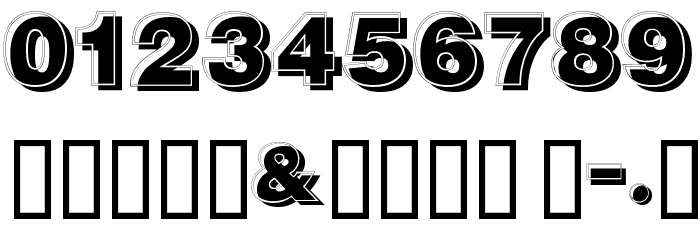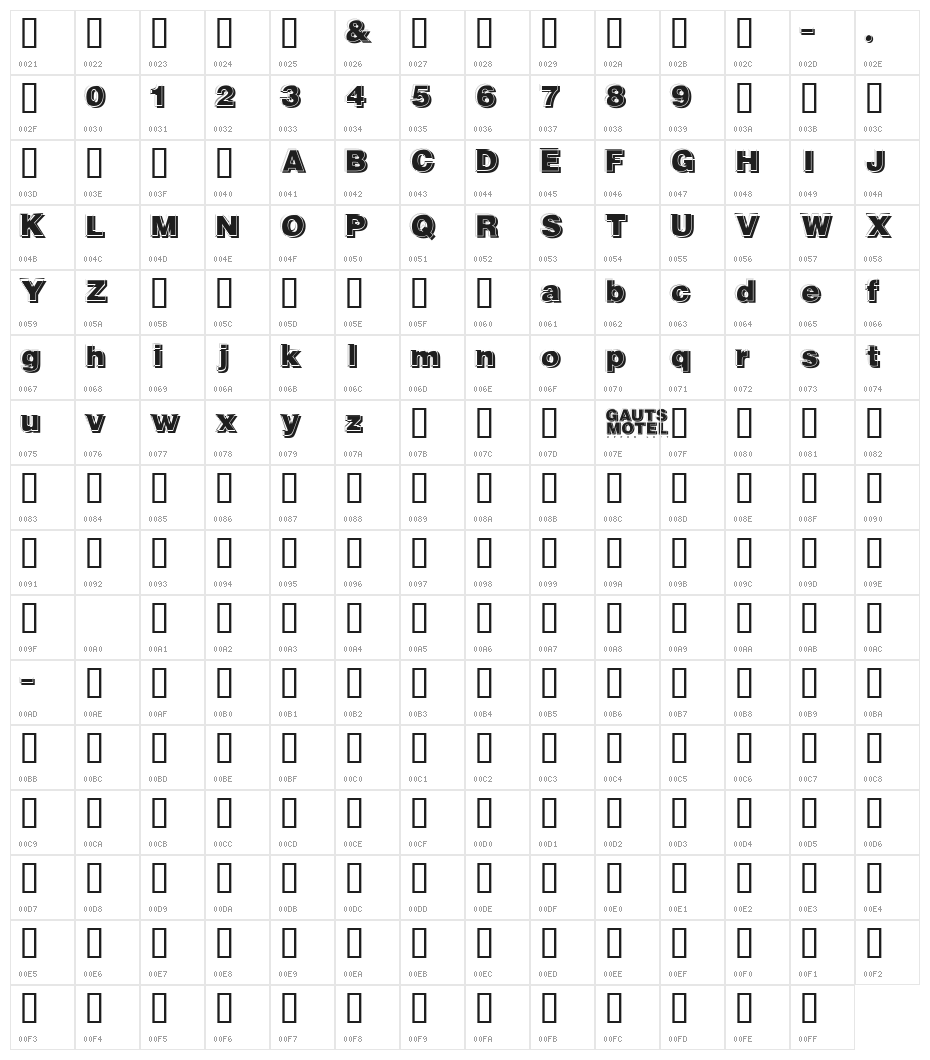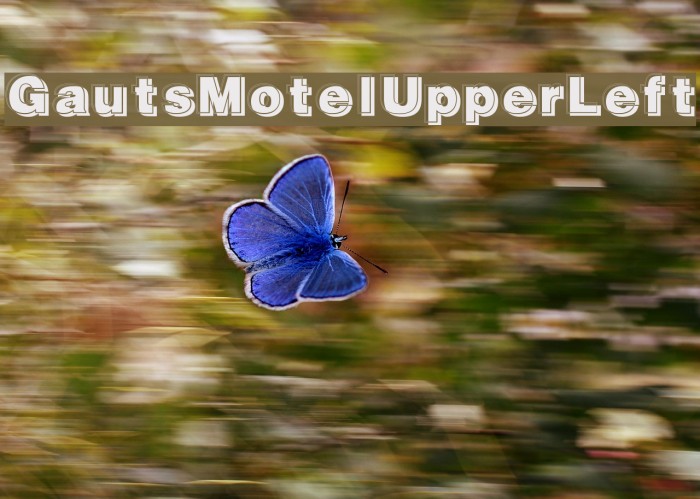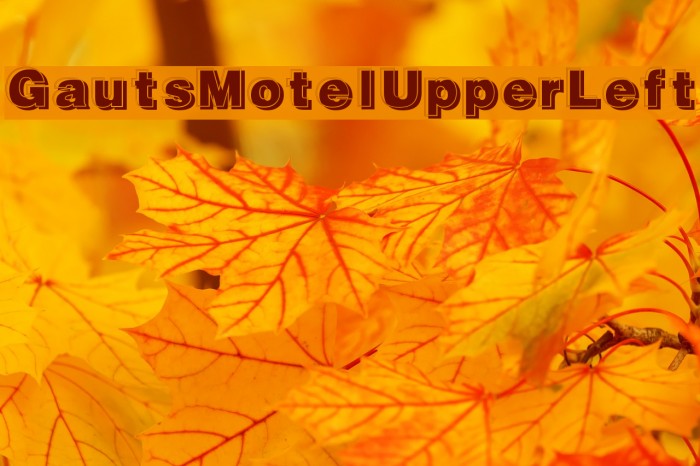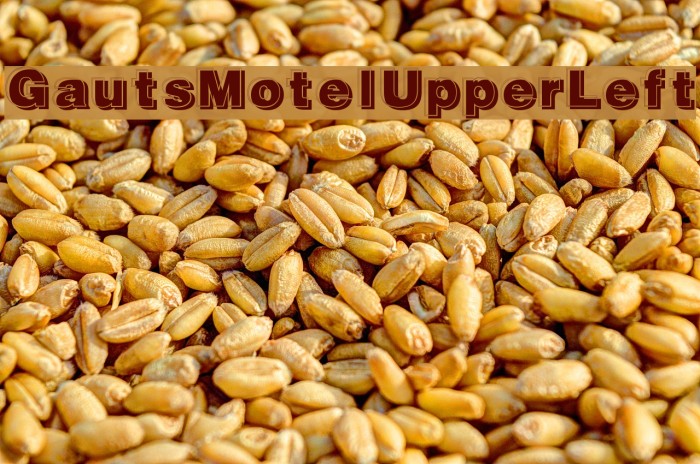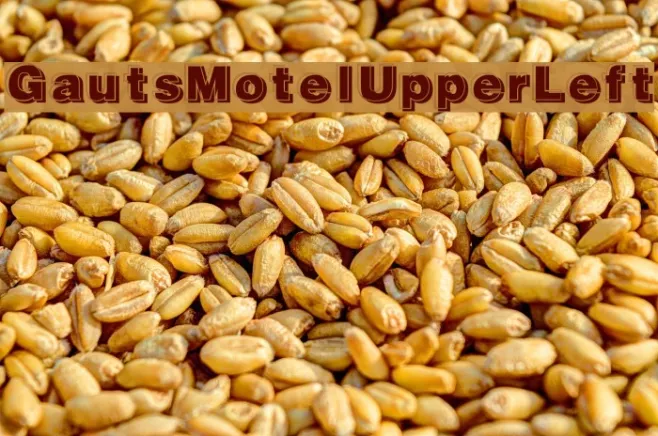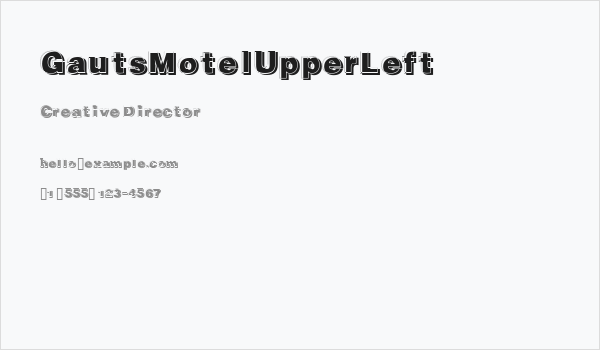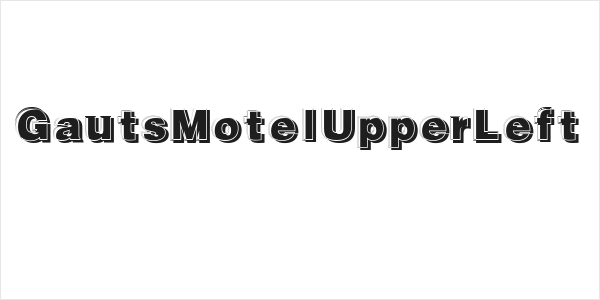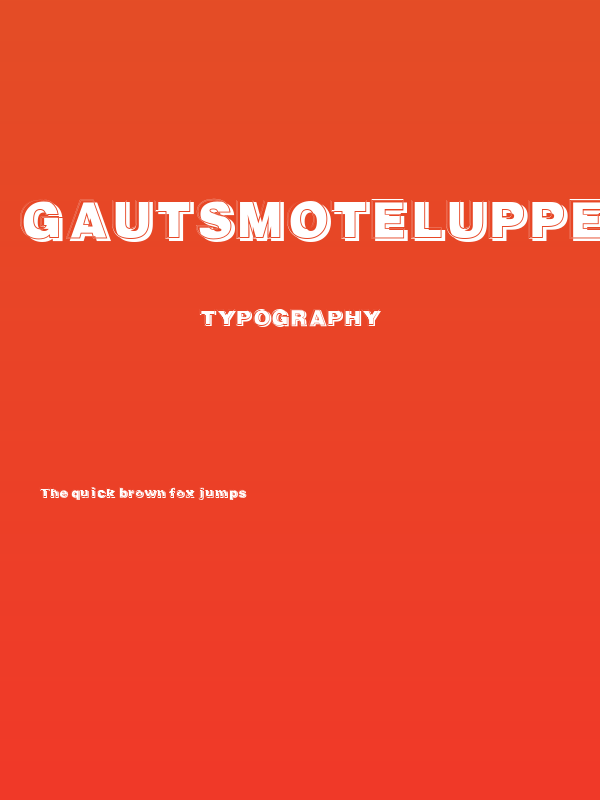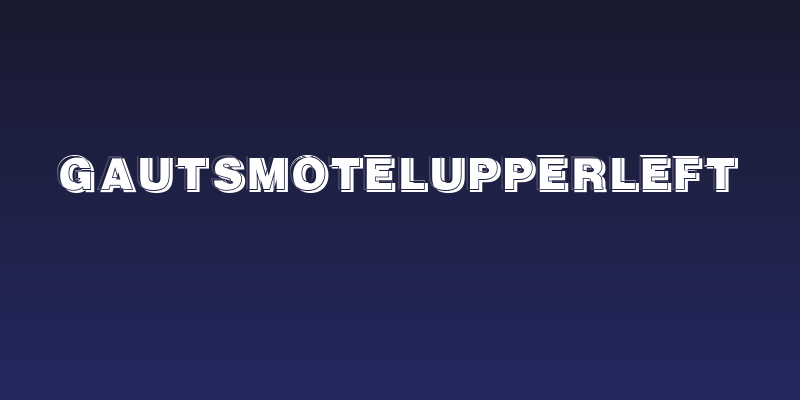
GautsMotelUpperLeft Font
GautsMotelUpperLeft Description
This bold, decorative font features a strong, impactful presence with its thick, blocky letters and a distinctive double-outline effect. The uppercase and lowercase characters maintain a consistent weight, creating a cohesive look. The numbers and special characters are designed with the same boldness, ensuring uniformity across all elements. The font's style is reminiscent of vintage signage, with a modern twist that makes it suitable for eye-catching designs. Its bold nature and unique outline make it ideal for projects that require a standout visual element.
| Overall Style | Vintage, Modern |
| Proposed Projects | Ideal for posters, headlines, logos, and branding materials where a strong visual impact is desired. |